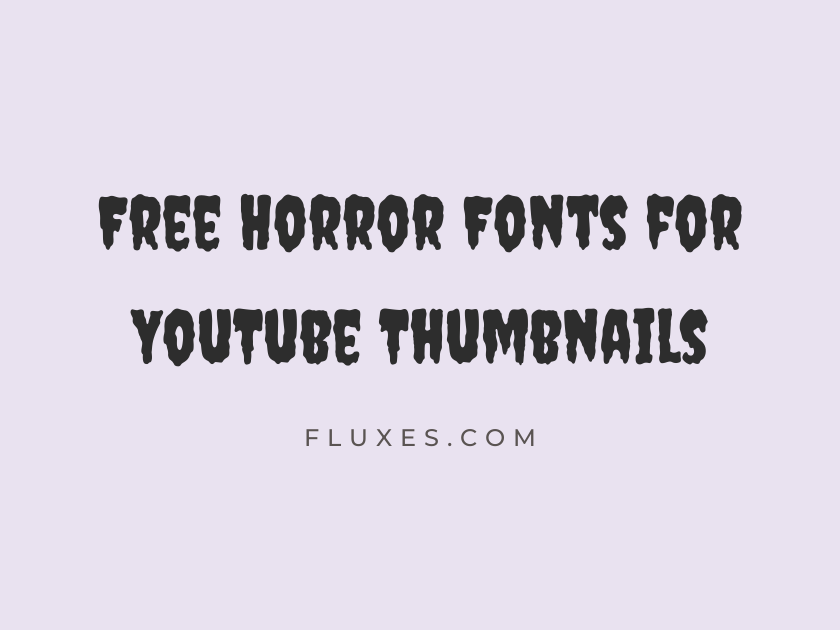
64 Best Free Horror Fonts for YouTube Thumbnails
A horror thumbnail has about half a second to make someone stop scrolling, and typography is doing most of that work. The right free horror font can suggest dripping blood, cracked bone, an old cursed manuscript, or a corrupted VHS tape before a viewer even registers the words, while the wrong one just looks like clip art. Every option here comes from Google Fonts, so it is free to use commercially, easy to embed on a channel art page, and simple to pair with a bold sans for the readable parts of your title.
Because thumbnails get viewed at postage-stamp size on a phone before anyone clicks through, legibility matters as much as atmosphere. The selections below range from full-blast gore lettering to restrained gothic serifs and grungy handwriting, so you can match the font to the specific flavor of scary your channel goes for, whether that is found-footage, slasher, ghost story, or creepypasta narration.
This is the font most people picture the moment someone says “horror font,” with drippy, slightly melted letterforms that read as instant Halloween. It works beautifully as a short, punchy word or two at large size, but it turns to mush if you try to cram a full sentence into a small thumbnail corner, so save it for your title’s scariest word.
Nosifer
Nosifer takes its name from the vampire in Nosferatu, and the letterforms look like they were carved from wax and left to melt over candlelight. Use it sparingly, one or two words at most, because the dripping details get muddy fast at small sizes.
Splattered, uneven, and a little unhinged, Butcherman suits slasher-movie recap channels and true crime thumbnails that want a handmade, blood-spattered feel without going full cartoon.
Eater
The jagged, gnawed-looking edges on this display face make it feel like the letters themselves have been bitten into, which is exactly the kind of visual pun that works well for zombie and cannibal horror content.
Vampiro One
Thick, rounded gothic strokes give Vampiro One a bold, poster-ready presence that reads clearly even when shrunk down, making it one of the more practical genuinely spooky choices on this list.
Frijole
Chunky and uneven like hand-carved wood, Frijole feels at home on cabin-in-the-woods thumbnails, cursed object unboxings, and anything that wants a rustic, slightly primitive menace.
Jolly Lodger
There is a carnival-gone-wrong energy in this crooked, uneven lettering that suits killer clown content, haunted circus stories, and anything leaning into campy dread rather than pure terror.
Metal Mania
Borrowed straight from heavy metal album art, this jagged, spiky face brings an extreme-horror, gore-channel intensity that pairs naturally with red and black thumbnail palettes.
Part blackletter, part pirate map lettering, Pirata One has an old-world menace that suits cursed treasure, ghost ship, and folklore horror stories without tipping into full medieval fantasy territory.
For genuine blackletter gothic, this is one of the most authentic free options available, with the heavy, angular strokes you associate with old grimoires and cathedral inscriptions.
Readers will recognize it instantly as “old and dangerous,” which makes it excellent for demonic possession, witchcraft, and cursed-artifact videos. Keep the surrounding text in a plain sans so the blackletter word stays the star of the composition.
UnifrakturCook
A bolder, denser cousin of Maguntia, this cut only comes in a heavy weight, which makes it hit harder as a thumbnail headline while keeping the same medieval curse-text mood.
Grenze Gotisch
Grenze Gotisch modernizes blackletter into something a touch more geometric and legible, and because it spans a wide weight range, you can dial the drama up or down depending on how loud the thumbnail needs to be.
Eagle Lake
Calligraphic and slightly aristocratic, Eagle Lake suits vampire lore, period horror, and gothic romance content better than the more aggressive display faces on this list.
Macondo
There is a storybook quality to Macondo’s rounded serifs that makes it perfect for dark fairy tale retellings, folklore horror, and channels covering creepy children’s stories.
Finally, keep a consistent font pairing across a channel’s thumbnails. Viewers start recognizing a horror channel by its type treatment almost as quickly as by its color palette.
With this many free options available directly through Google Fonts, there is no reason to lean on a single overused horror cliché font for every upload. Mix a genuinely spooky display face with a dependable bold sans, keep small-size legibility in mind, and the typography will do its job of making viewers stop scrolling before they even process what the thumbnail shows.